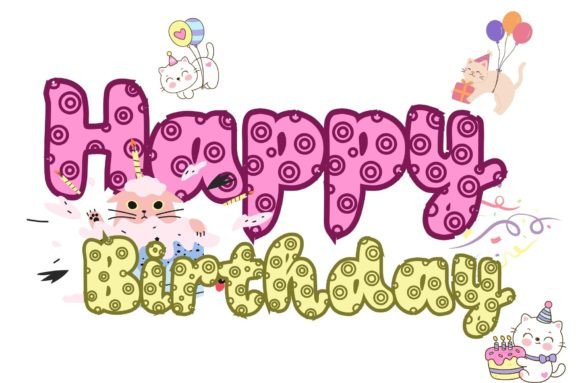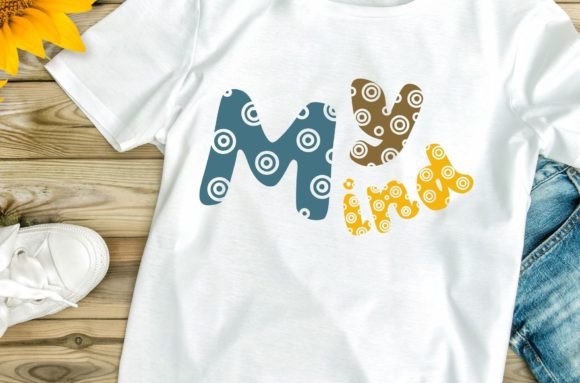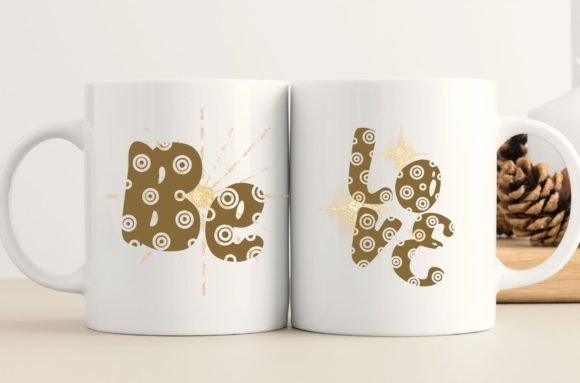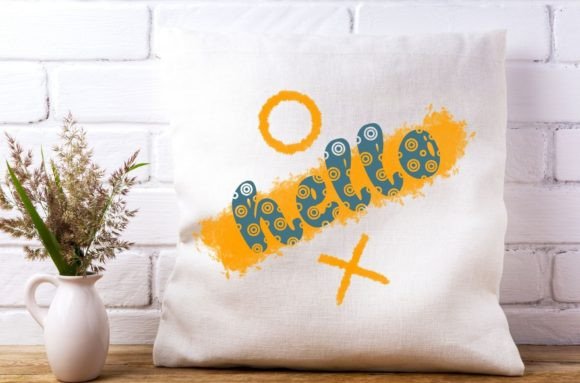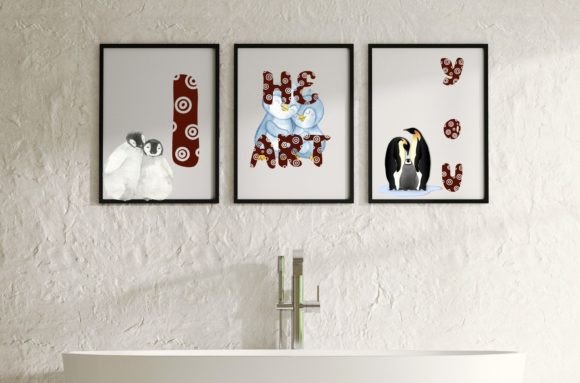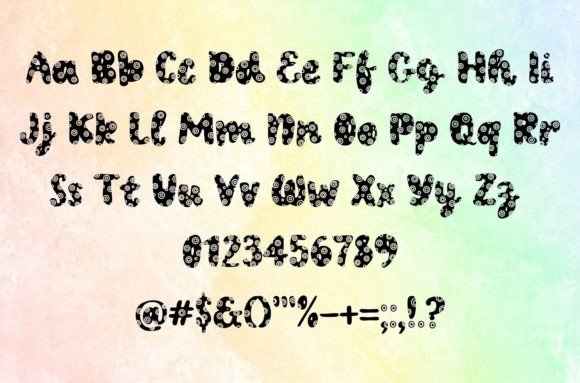
Introduction to Fun Circle Font
Have you ever been brainstorming a creative project and suddenly, the perfect font pops into your head? That’s exactly what happened to me when I stumbled upon the Fun Circle Font. Its playful, handwritten style instantly sparked a wave of ideas for a kids’ birthday party invitation I was working on. As I delved deeper into the font’s capabilities, I realized its potential was far greater than just a single project.
The Fun Circle Font is a high-quality design resource that’s sure to elevate any creative endeavor. With its transparent background and bold, whimsical characters, it’s perfect for logos, branding, wedding invitations, and more. Whether you’re a seasoned designer or a DIY enthusiast, this versatile font is a valuable addition to your toolkit.
Key Features of Fun Circle Font
- Unique, playful design suitable for creative projects and kids’ materials
- Transparent background, allowing for easy customization and versatility
- Designed to be easily scalable and editable, perfect for use in various design applications
Honest Review: Fun Circle Font
I recently had the chance to work with the Fun Circle Font on a creative project, and I must say, it was a refreshing experience. This font has been a valuable addition to my design resource library.
What works well: ✨ The Fun Circle Font is incredibly versatile and easy to use, making it perfect for a variety of creative projects. The high-quality design and transparent background make it a great choice for anyone looking for a clean and modern aesthetic.
Here are some of the font’s key features:
- High-quality design for a professional look
- Perfect for creative projects, including logos, graphics, and more
Limitations: ⚠️ While the Fun Circle Font is overall a great resource, I did find that it may not be suitable for projects requiring a large number of font sizes and styles. However, for most creative projects, it should suffice.
Overall impression: I’m thoroughly impressed with the Fun Circle Font and would highly recommend it to fellow designers. Its ease of use and high-quality design make it a valuable addition to any design resource library.
How to Use Fun Circle Font
The Fun Circle Font is a unique and eye-catching design resource that can add a creative touch to any project. It’s a high-quality font that comes with a transparent background, making it easy to use in a variety of creative projects.
To get the most out of the Fun Circle Font, use it in combination with other creative elements such as graphics, illustrations, and colors. Experiment with different font sizes, colors, and styles to create a unique and eye-catching design.
The Fun Circle Font is perfect for creating fun and playful designs for social media, websites, and marketing materials. It’s also great for creating custom graphics, illustrations, and logos.